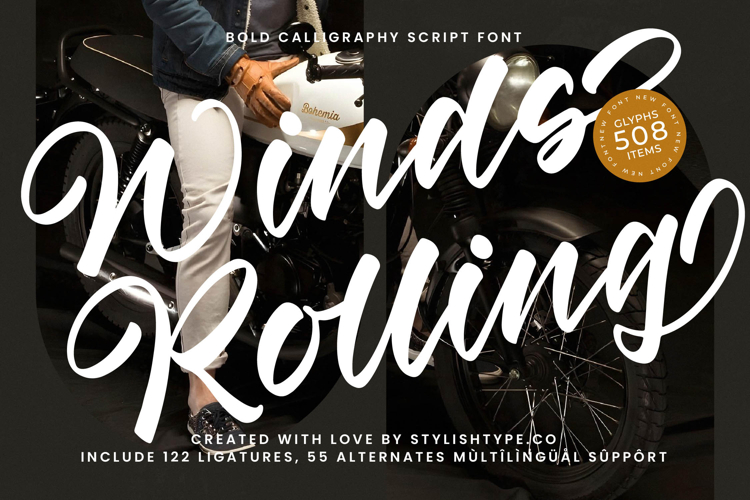
Winds Rolling - Bold Calligraphy Script Font
Discover the captivating allure of Font Winds Rolling - Bold Calligraphy Script Font Script, a truly exceptional typeface designed to make an unforgettable statement. This bold calligraphy script embodies a dynamic elegance with its expressive, flowing strokes and remarkable high-contrast design. It flawlessly balances modern vibrancy with a timeless, artisanal touch, creating a striking visual presence that immediately commands attention and elevates any design project.
Unleash unparalleled design flexibility with Font Winds Rolling - Bold Calligraphy Script Font Script, meticulously crafted for typographic sophistication. Featuring an impressive collection of 122 ligatures, 55 alternates, and 508 glyphs, this font offers expansive customization options. These extensive character sets allow designers to craft truly unique and personalized compositions, ensuring every project stands out with bespoke flair and authentic character.